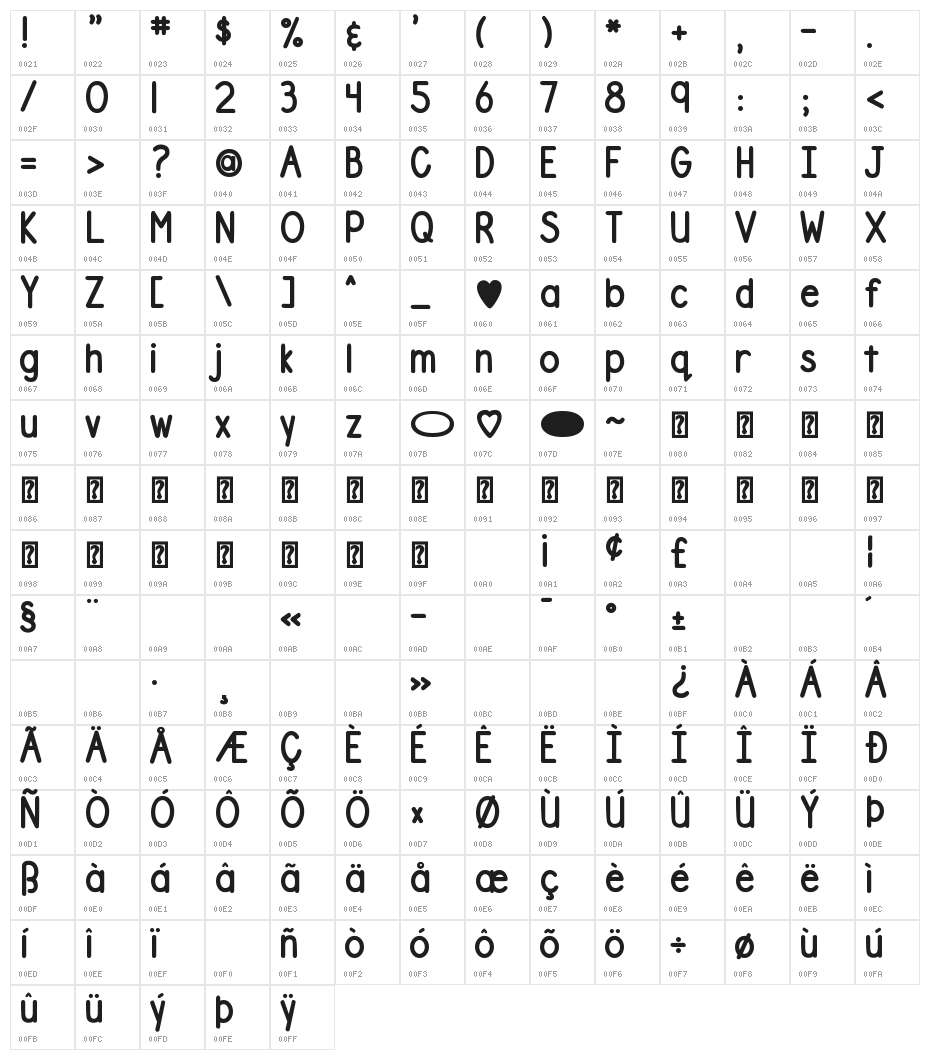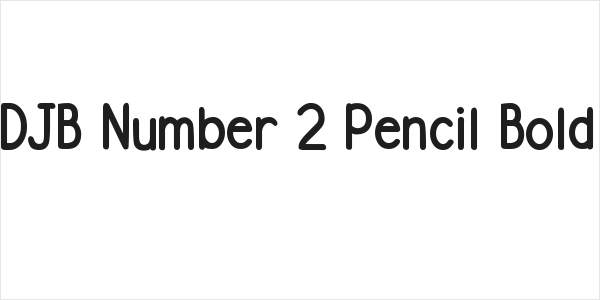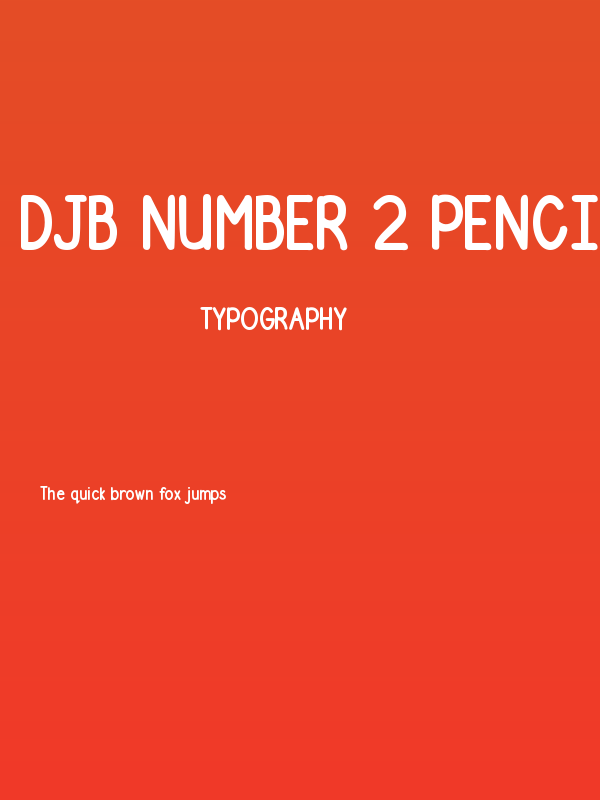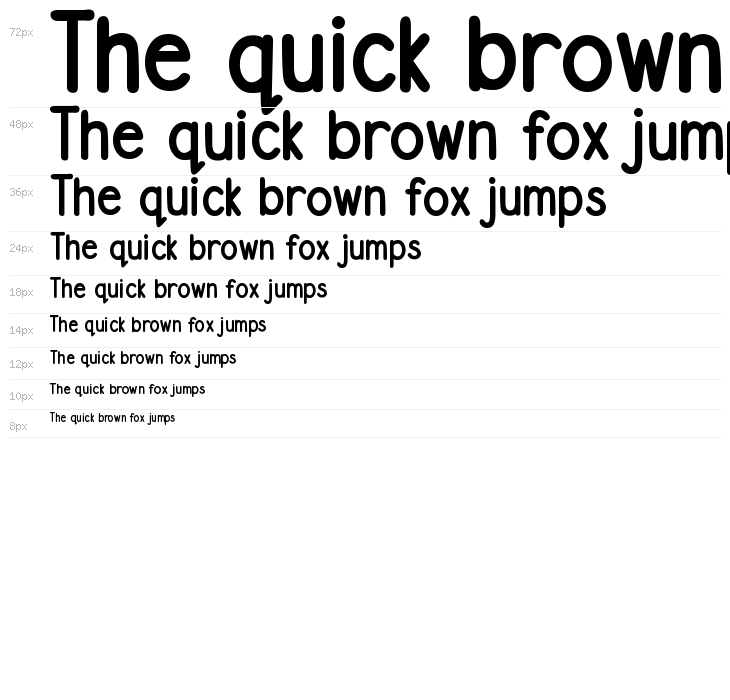
DJB Number 2 Pencil Bold Font
DJB Number 2 Pencil Bold Description
This font features a playful and rounded style, reminiscent of handwriting with a bold touch. The characters are evenly spaced with a consistent stroke width, giving it a friendly and approachable appearance. The uppercase and lowercase letters maintain a uniform height, contributing to its readability. The numbers and special characters are clear and distinct, making it versatile for various applications. Its rounded edges and bold presence make it ideal for projects that require a casual and inviting tone.
| Use Case | Headlines, Logos, Informal Texts |
| Proposed Projects | Ideal for children's books, educational materials, casual branding, and playful invitations. |